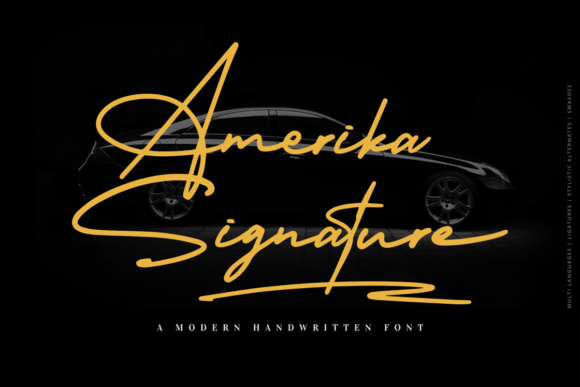
Introduction to Amerika Signature Font
Amerika Signature is a fashionable and beautiful handwritten font.
It has a classy, elegant and modern look that can be used for logos, branding, invitations, stationery, wedding designs, social media posts, and much more .
Why Choose Amerika Signature Font?